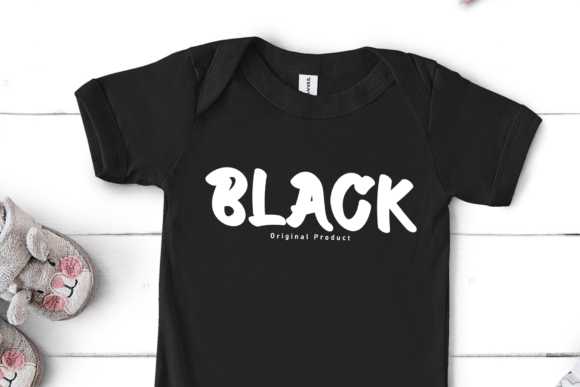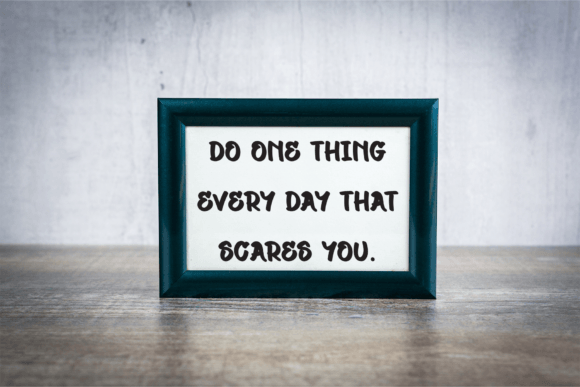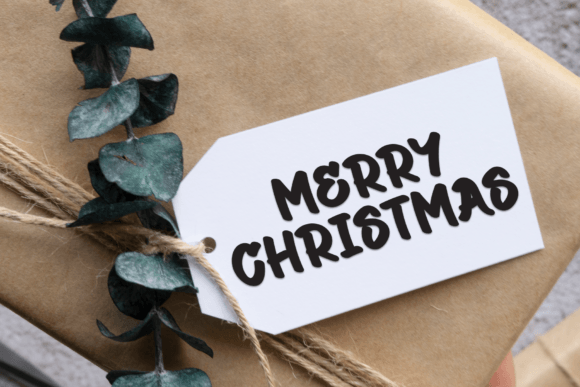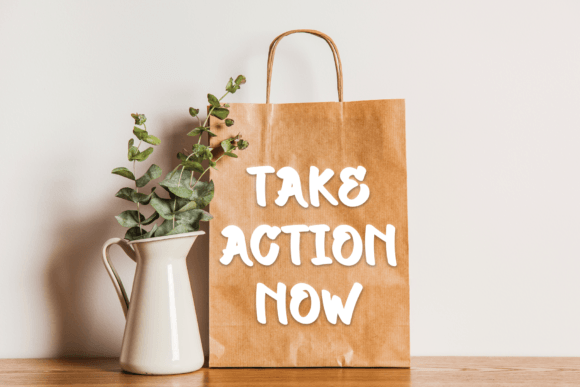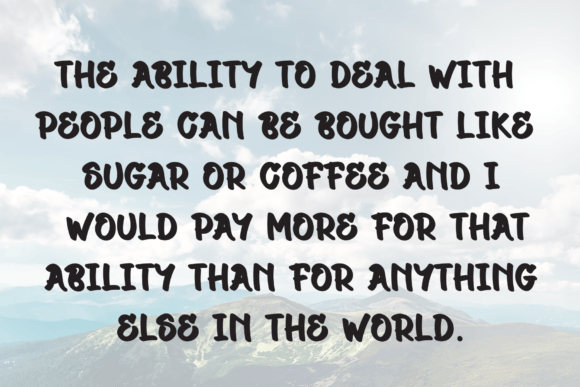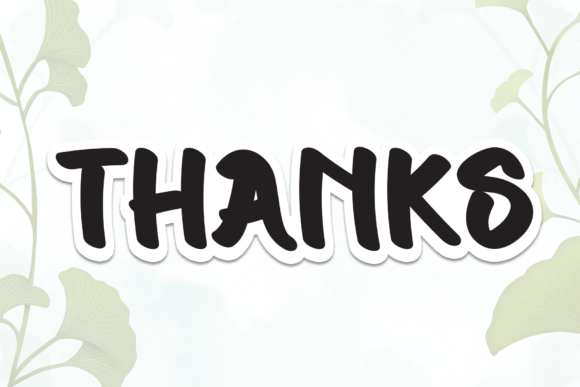
The Grinches Font: A Sweet and Playful Addition to Your Design Arsenal
I’ll never forget the time I was working on a whimsical wedding invitation project, and my client asked me to add a dash of fun and playfulness to the design. I scoured the internet for the perfect font, but nothing seemed quite right. That was until I stumbled upon the Grinches Font. With its irresistibly charming handwritten display, I knew I had found the perfect tool to bring my client’s vision to life.
A Font that Radiates Sweetness and Friendly Vibes
The Grinches Font is a beautiful, handwritten display font that effortlessly injects a delightful touch into your creations. Its playful and adorable styling makes it perfect for crafting heartwarming wedding invitations, designing whimsical cards, or adding a touch of fun to any design project. Whether you’re a designer, crafter, or creative hobbyist, this font is sure to become a favorite in your arsenal.
- ✨ The Grinches Font is incredibly versatile and can be used for a wide range of design projects.
- ✅ The font is easy to read and understand, even at smaller sizes.
- 💕 The playful and whimsical styling adds a touch of fun and personality to any design.
- 🎉 The font is perfect for creating eye-catching headings and titles.
While the Grinches Font is an amazing addition to any design project, there are a few things to keep in mind. 🤔 For example, the font can be a bit overused, so be sure to balance it with other design elements. ⚠️ Additionally, some of the more intricate details may not render well at very small sizes.
A Practical Guide to Using the Grinches Font
The Designer Inspiration Behind the Grinches Font
The Grinches Font was designed with the goal of creating a beautiful, handwritten display font that would bring a touch of fun and playfulness to any design project. Inspired by the whimsical world of Dr. Seuss, the font’s designer aimed to create a font that would evoke a sense of joy and wonder.
Q: What type of projects is the Grinches Font best suited for?
A: The Grinches Font is perfect for a wide range of design projects, including wedding invitations, greeting cards, and other creative endeavors.
Q: Is the Grinches Font easy to read?
A: Yes, the Grinches Font is designed to be easy to read and understand, even at smaller sizes.